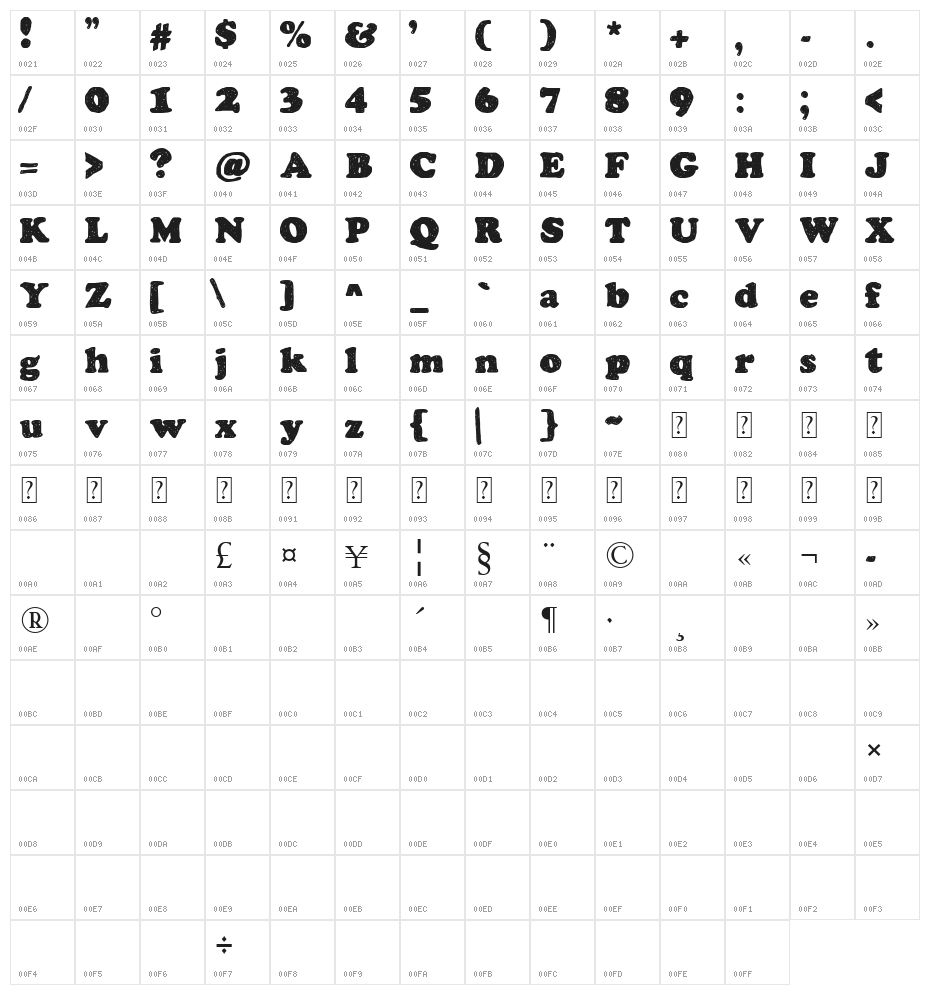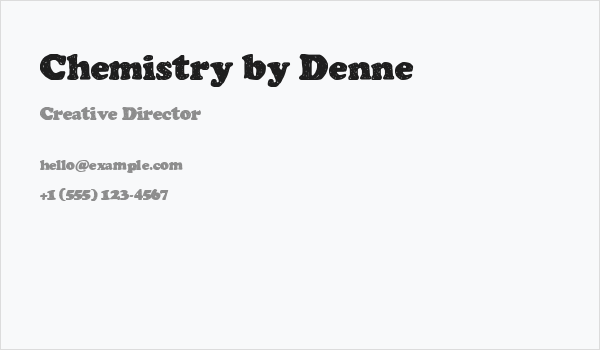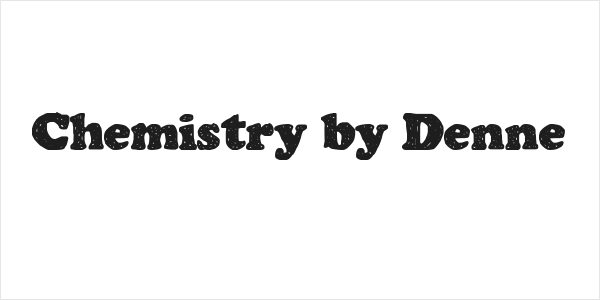
Chemistry by Denne Font
Chemistry by Denne Description
This font features a bold and playful style with a distinct textured appearance, reminiscent of a chalkboard or hand-drawn effect. The characters are robust and rounded, providing a friendly and approachable feel. The uppercase and lowercase letters maintain a consistent weight, ensuring readability while adding a touch of whimsy. The numbers and special characters follow the same design ethos, making them suitable for creative and informal applications. The font's unique texture adds depth and character, making it stand out in various design contexts.
| Overall Style | Playful, Creative |
| Proposed Projects | Ideal for children's books, educational materials, playful branding, and creative posters. |